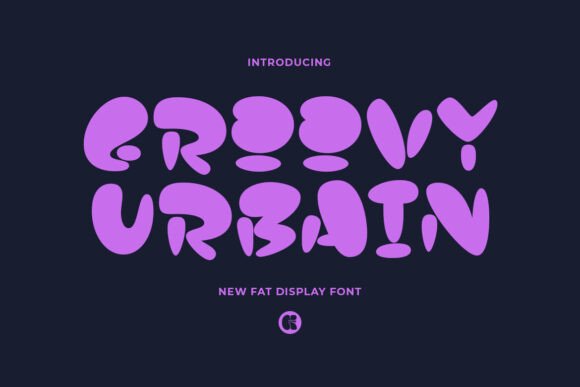
Groovy Urbain Font: The Ultimate Choice for Cartoon-Inspired Projects
Are you looking for a font that can add a touch of fun and creativity to your design projects? Look no further than the Groovy Urbain font. This chubby and bold display font is characterized by its chunky appearance and playful aesthetic, making it the perfect choice for cartoon-inspired projects. In this article, we’ll take a closer look at the Groovy Urbain font, its features, and how it can be used to bring a sense of charm and character to your designs.
What is Groovy Urbain Font?
Groovy Urbain font is a type of display font that is designed to make a statement. It’s a chubby and bold font that features a delightful combination of vectors that form a cute and whimsical design. The font is characterized by its chunky appearance, which gives it a playful and friendly look. This makes it perfect for designs that require a light-hearted and jovial tone.
Key Features of Groovy Urbain Font
The Groovy Urbain font has several key features that make it stand out from other fonts. Some of its notable features include:
- Chunky Appearance: The font has a chunky appearance that gives it a playful and friendly look.
- Playful Aesthetic: The font has a playful aesthetic that makes it perfect for cartoon-inspired projects.
- Cute and Whimsical Design: The font features a delightful combination of vectors that form a cute and whimsical design.
- Bold and Display Font: The font is a bold and display font that is designed to make a statement.
Why Use Groovy Urbain Font?
There are several reasons why you should consider using the Groovy Urbain font in your design projects. Some of the benefits of using this font include:
- Adds a Touch of Fun and Creativity: The font adds a touch of fun and creativity to any design, making it perfect for conveying a light-hearted and jovial tone.
- Ideal for Cartoon-Inspired Projects: The font is perfect for cartoon-inspired projects, such as illustrations, animations, and children’s books.
- Versatile: The font can be used in a variety of design projects, including branding, packaging, and advertising.
- Easy to Read: Despite its chunky appearance, the font is easy to read, making it perfect for use in headlines and titles.
How to Use Groovy Urbain Font?
Using the Groovy Urbain font is easy. Here are some tips on how to use it effectively in your design projects:
- Use it as a Display Font: The font is designed to be used as a display font, so use it in headlines and titles.
- Pair it with Other Fonts: The font can be paired with other fonts to create a unique and interesting design.
- Use it in Cartoon-Inspired Projects: The font is perfect for cartoon-inspired projects, such as illustrations, animations, and children’s books.
- Experiment with Different Colors: The font can be used with different colors to create a unique and eye-catching design.
Groovy Urbain Font in Branding and Advertising
The Groovy Urbain font can be used in branding and advertising to add a touch of fun and creativity to a brand’s image. Here are some ways the font can be used in branding and advertising:
- Logo Design: The font can be used to create a logo that is playful and friendly.
- Advertising: The font can be used in advertising to grab the attention of potential customers.
- Packaging: The font can be used on packaging to make a product stand out on store shelves.
- Social Media: The font can be used on social media to create engaging and eye-catching posts.
Groovy Urbain Font in Illustrations and Animations
The Groovy Urbain font is perfect for use in illustrations and animations. Here are some ways the font can be used in illustrations and animations:
- Children’s Books: The font can be used in children’s books to create a playful and engaging design.
- Illustrations: The font can be used in illustrations to add a touch of fun and creativity.
- Animations: The font can be used in animations to create a playful and engaging design.
- Cartoons: The font can be used in cartoons to create a playful and friendly character.
In conclusion, the Groovy Urbain font is a versatile and fun font that can add a touch of creativity and playfulness to any design project. Its chunky appearance and playful aesthetic make it perfect for cartoon-inspired projects, such as illustrations, animations, and children’s books. The font can also be used in branding and advertising to create a playful and friendly image. With its ease of use and versatility, the Groovy Urbain font is a great choice for designers looking to add a touch of fun and creativity to their designs.
- What is the Groovy Urbain font? The Groovy Urbain font is a chubby and bold display font with a delightful combination of vectors that form a cute and whimsical design.
- What is the Groovy Urbain font used for? The font is used for cartoon-inspired projects, such as illustrations, animations, and children’s books.
- Is the Groovy Urbain font easy to read? Yes, despite its chunky appearance, the font is easy to read, making it perfect for use in headlines and titles.
- Can the Groovy Urbain font be used in branding and advertising? Yes, the font can be used in branding and advertising to add a touch of fun and creativity to a brand’s image.